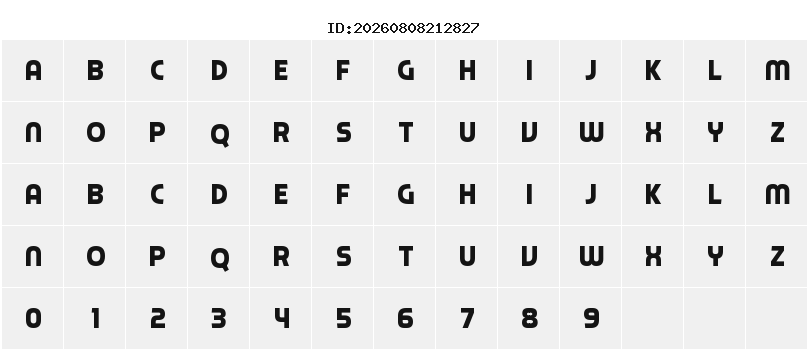
Piximisa Preview
• Font Name: Piximisa
• Font ID: Piximisa Regular
• Full Font Name: Piximisa Regular
• Version: v1.1 - 3/27/2012
• PostScript Name: PiximisaRegular
• Character Count: 170
• Designer: Jayvee D. Enaguas (Grand Chaos)
About Piximisa.ttf
Piximisa.ttf is a modern, elegant sans-serif font designed for ultimate readability and visual harmony. Perfect for branding, headlines, web design, and print materials.